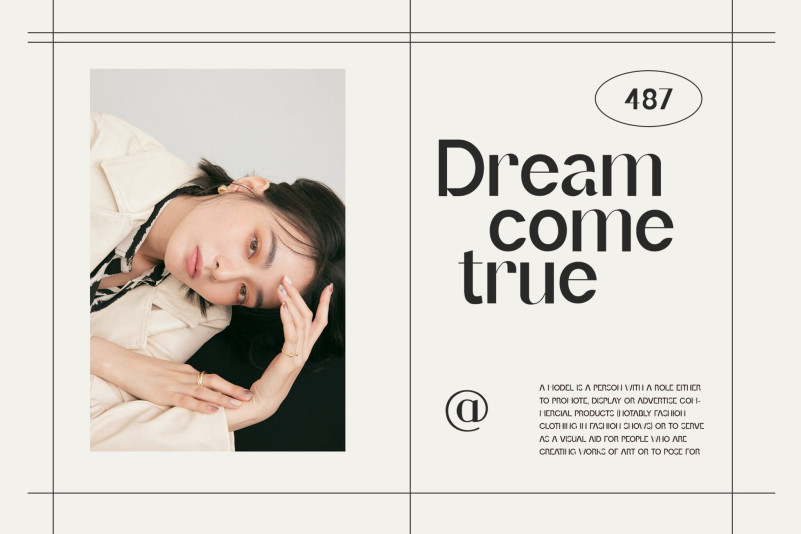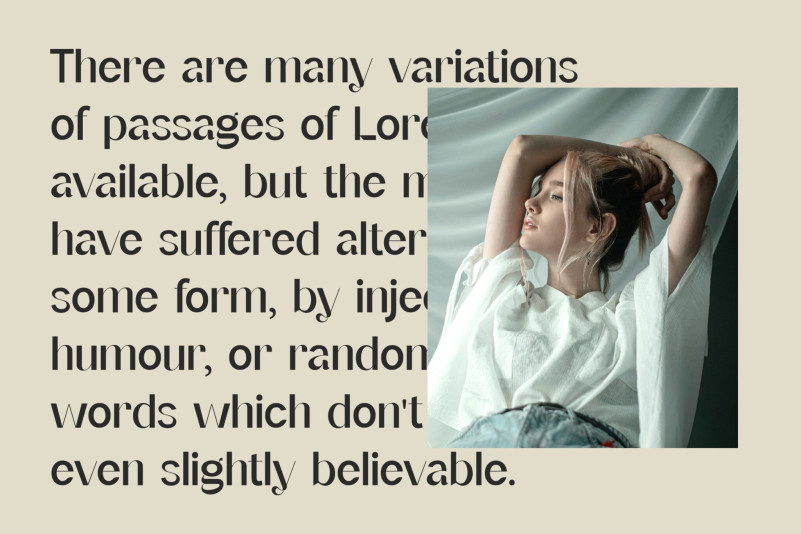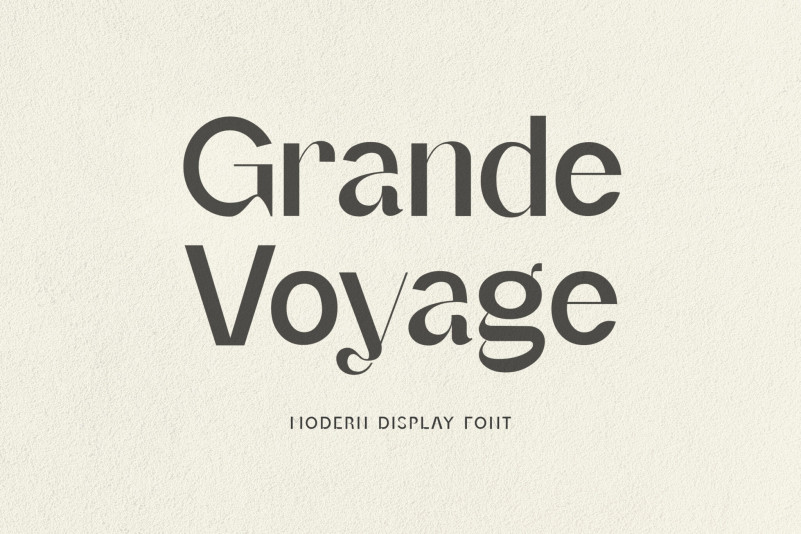
Grand Voyage Font
Grand Voyage Font – Modern Sans Serif font that feels beautiful classy, elegant, and modern. This font is perfectly suited for a wide variety of projects, such as signature, stationery, logo, wedding, typography quotes, magazine or book cover, website header, clothing, branding, packaging design, and more. Also, fashion-related branding or editorial design displays both masculine and feminine qualities.